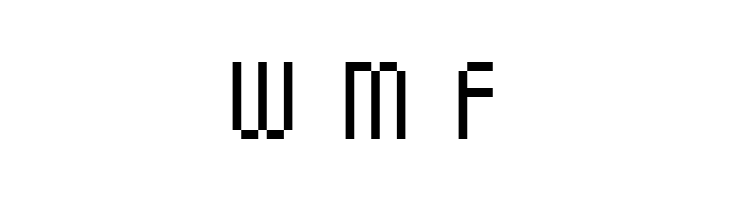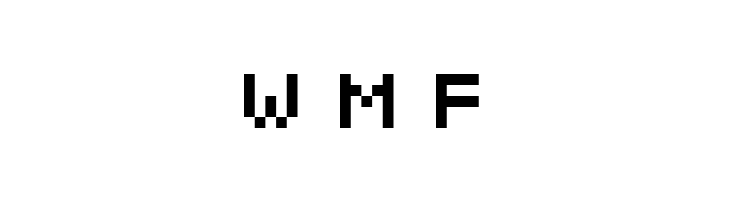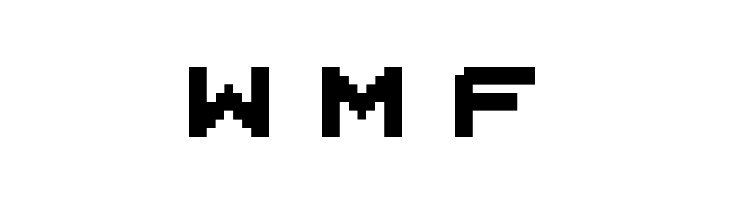
A pixelated, retro-style font with a blocky, digital appearance.
A pixelated, retro-style font with a digital, grid-like design.
A monospaced, pixelated font with a retro digital style.
A pixelated, geometric font inspired by retro digital displays.
A bold, pixelated font with a geometric, digital style.
A bold, pixelated font with a retro, digital aesthetic.
A bold, pixelated font with a retro digital style.